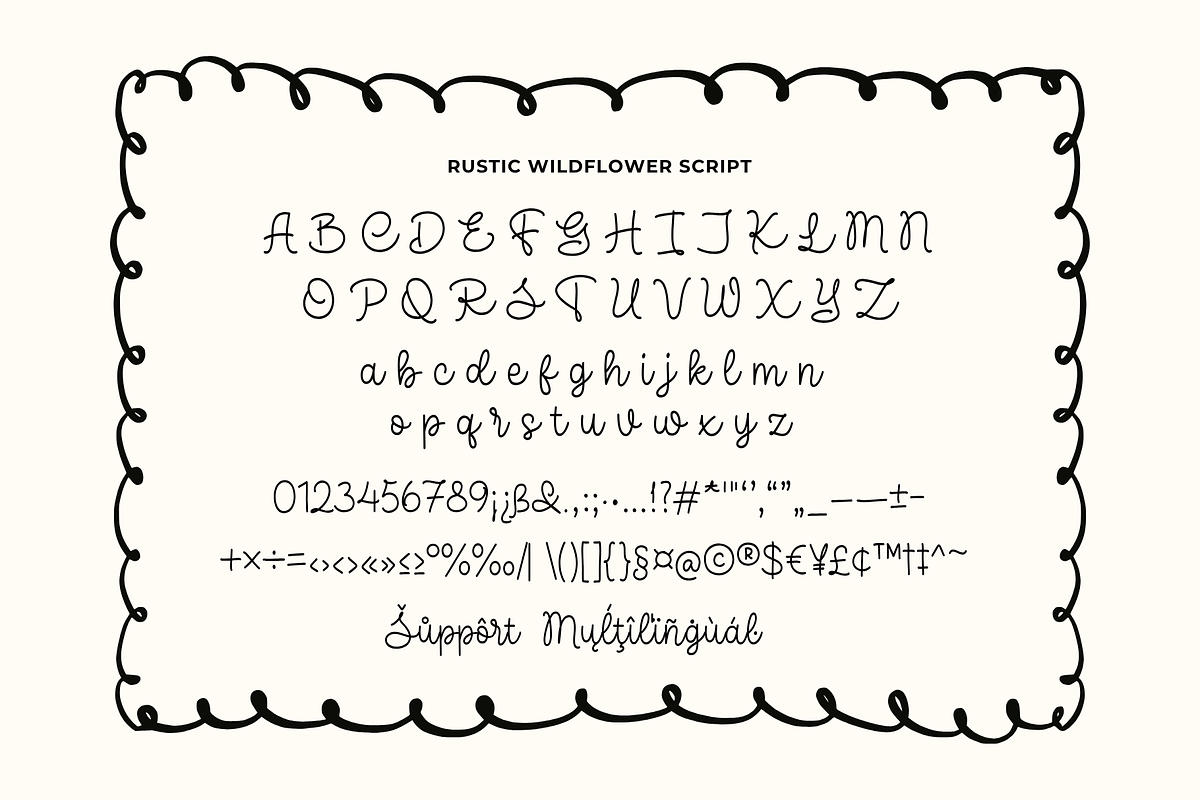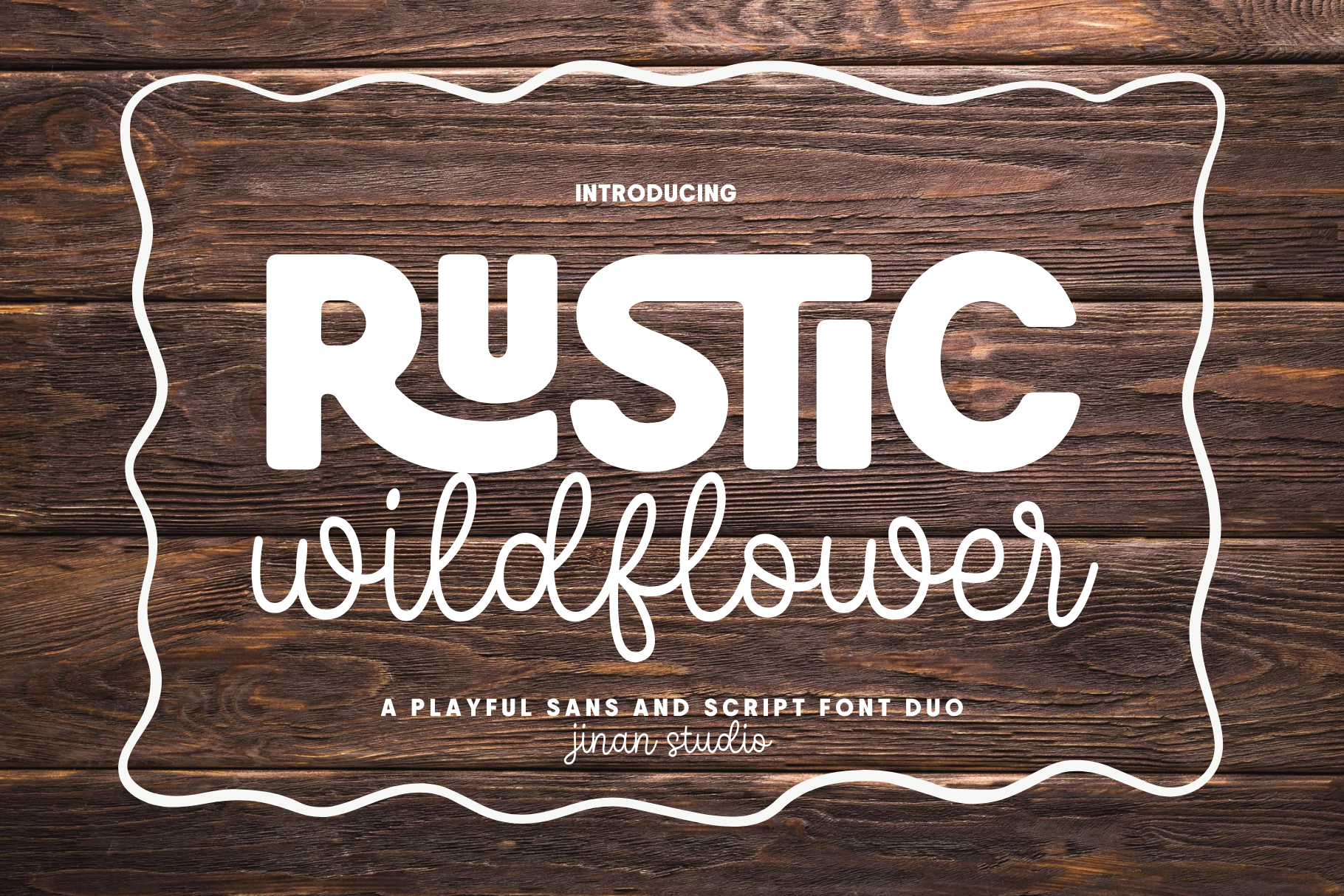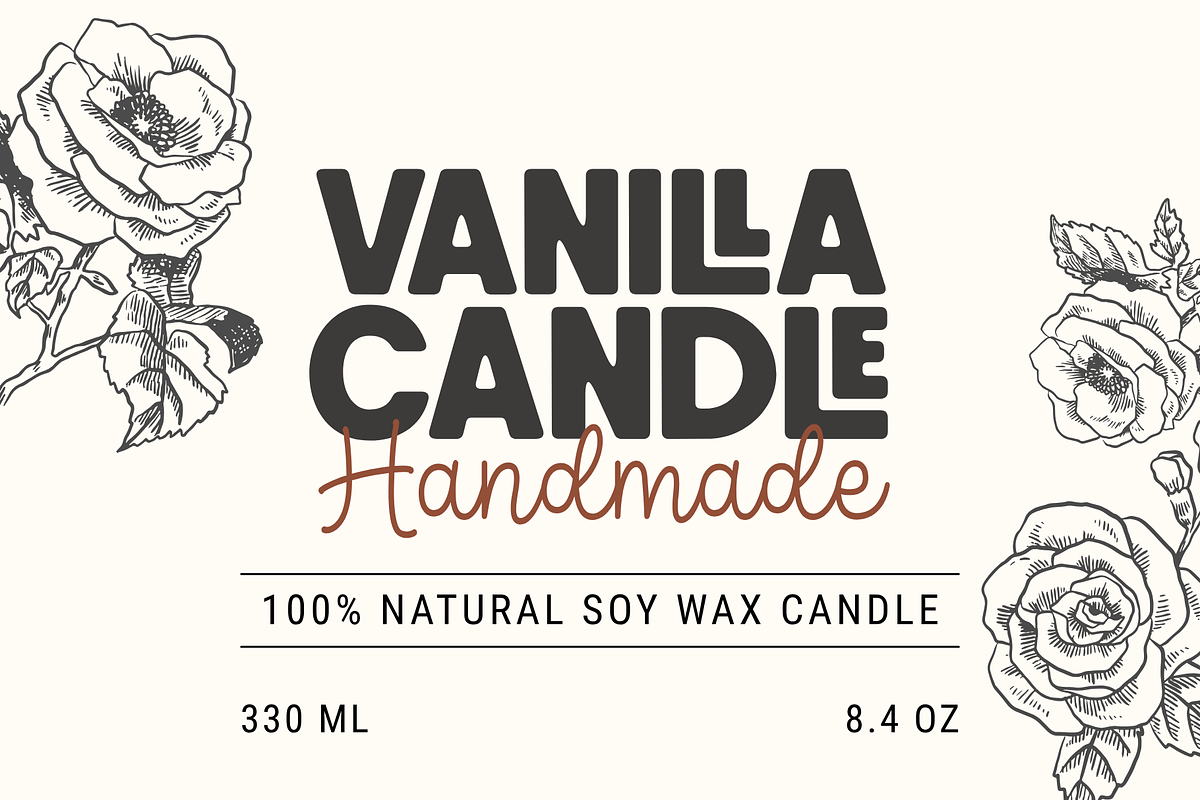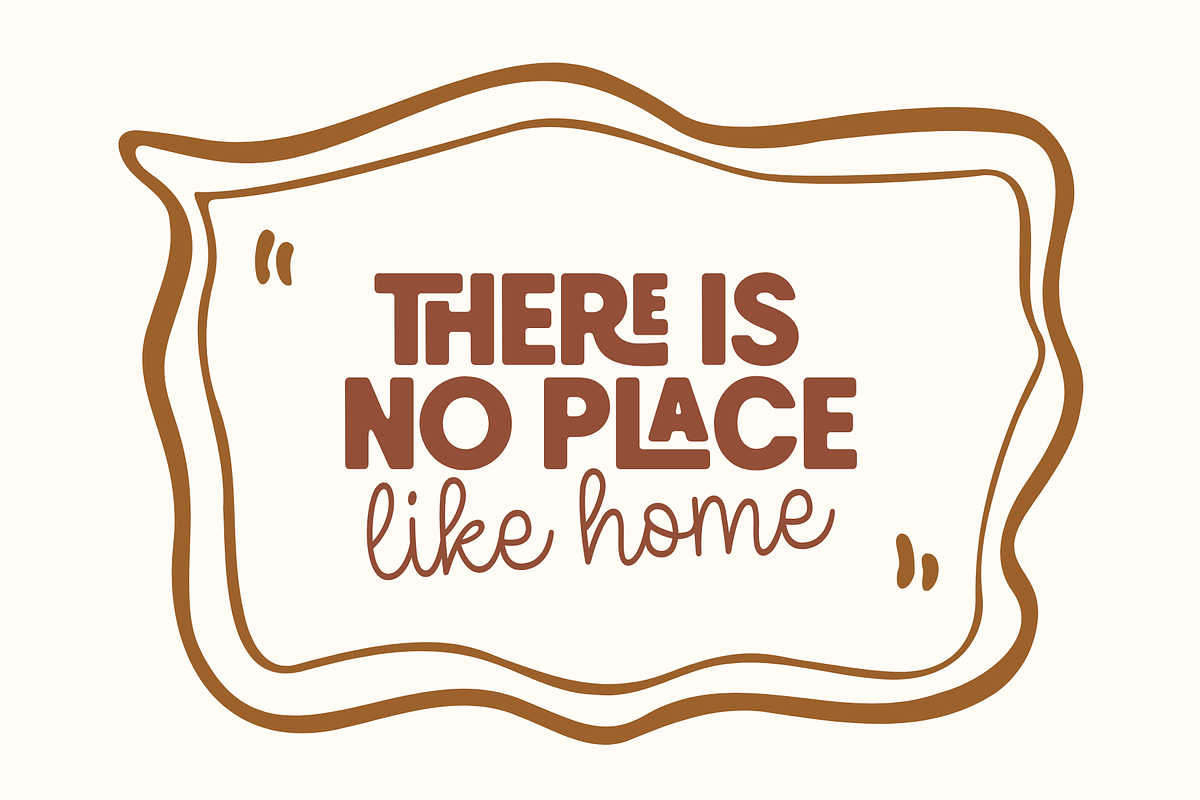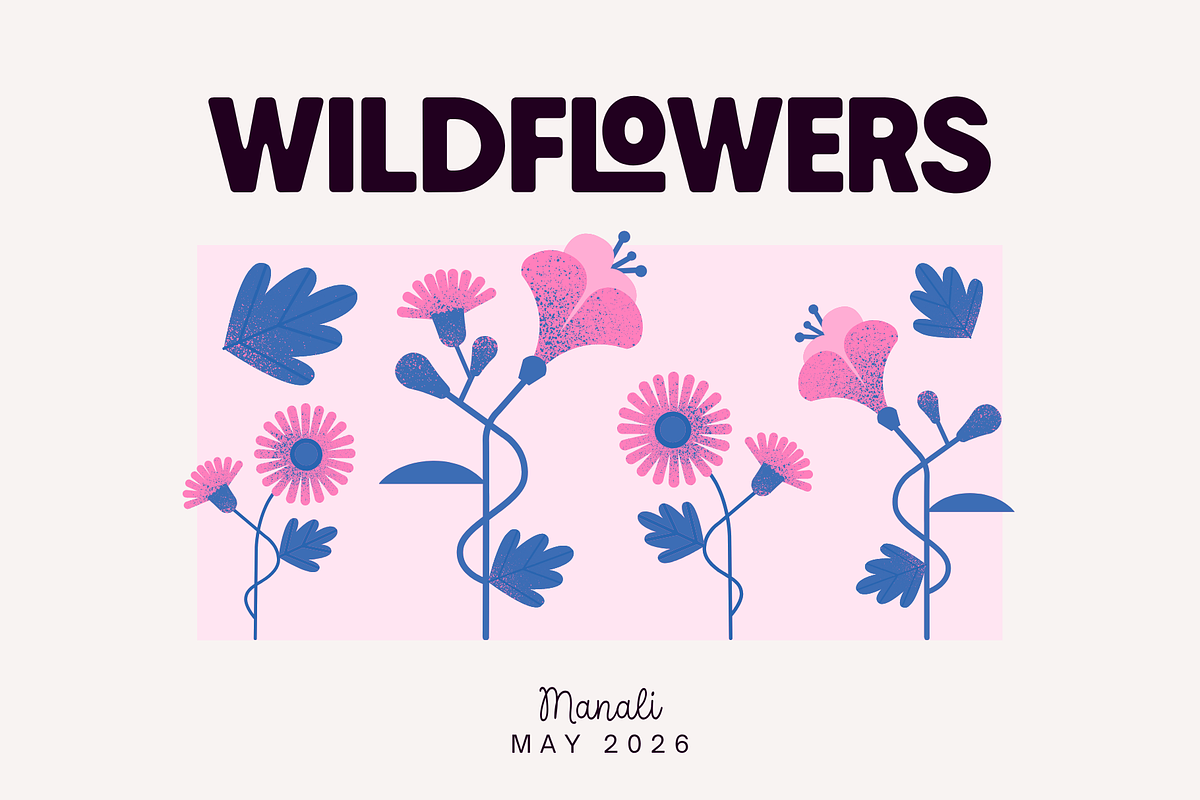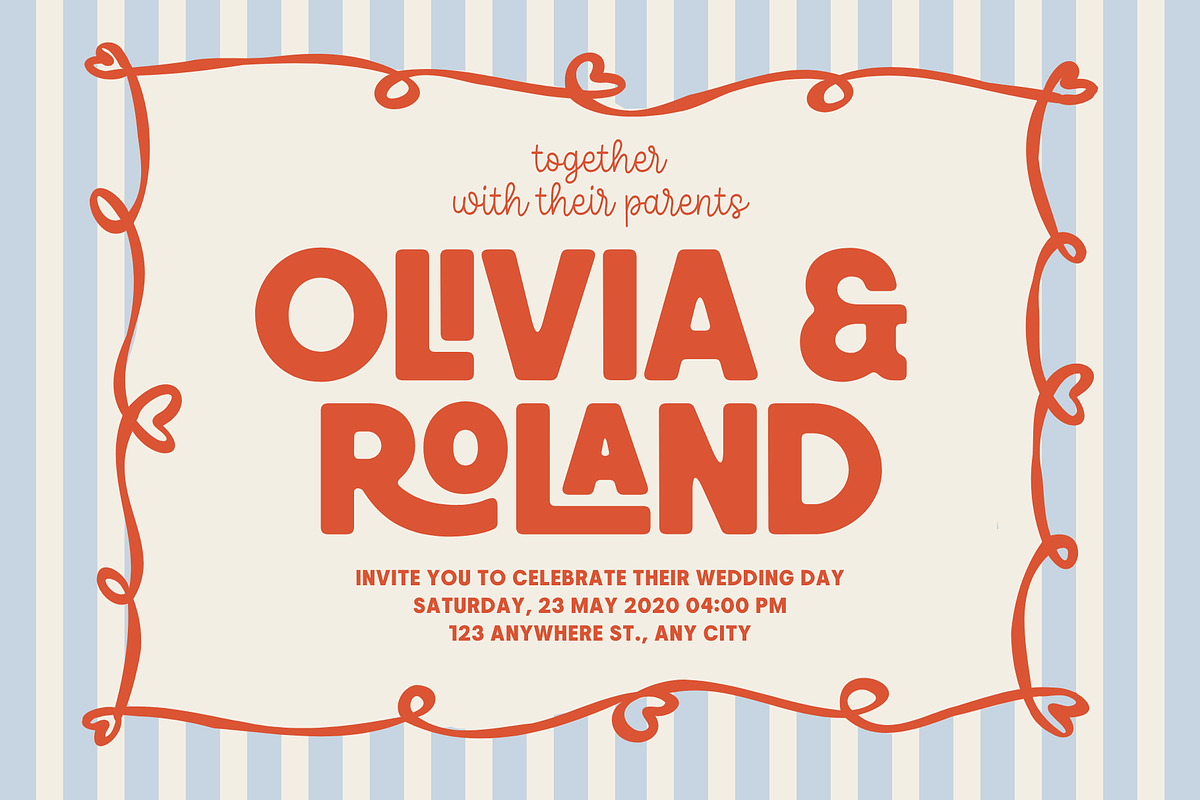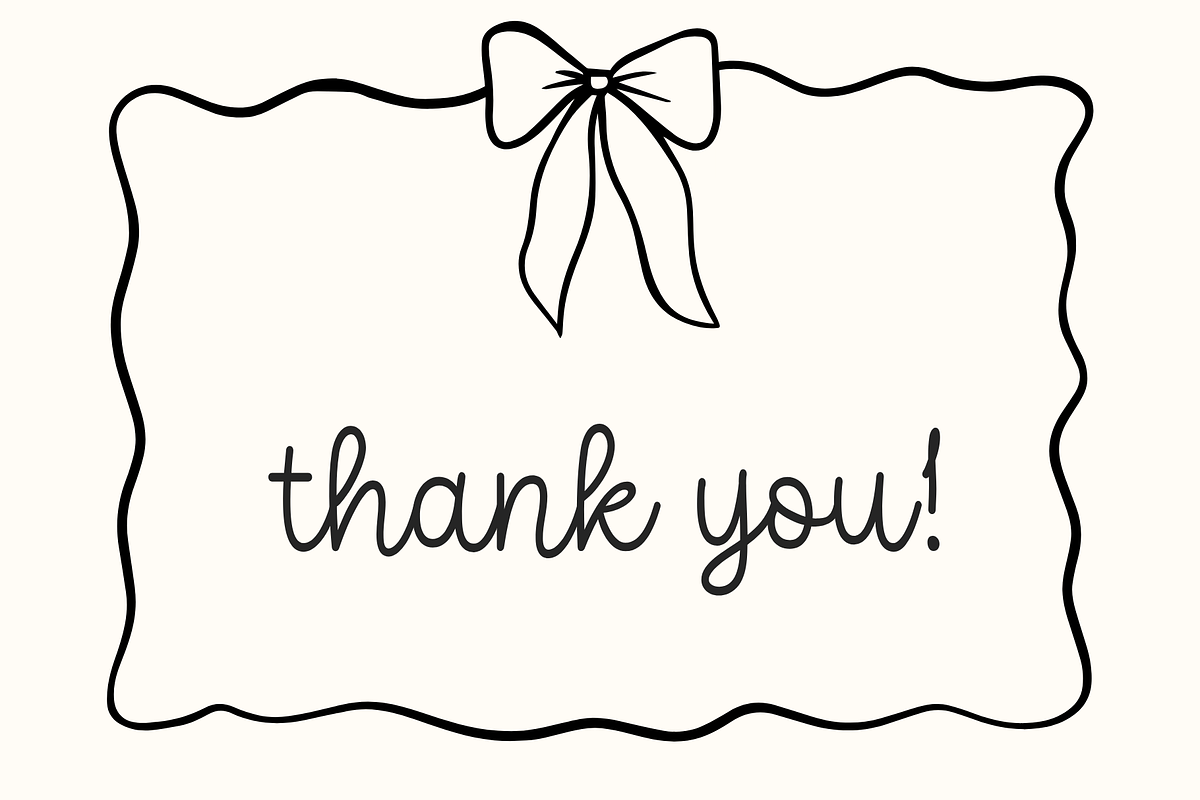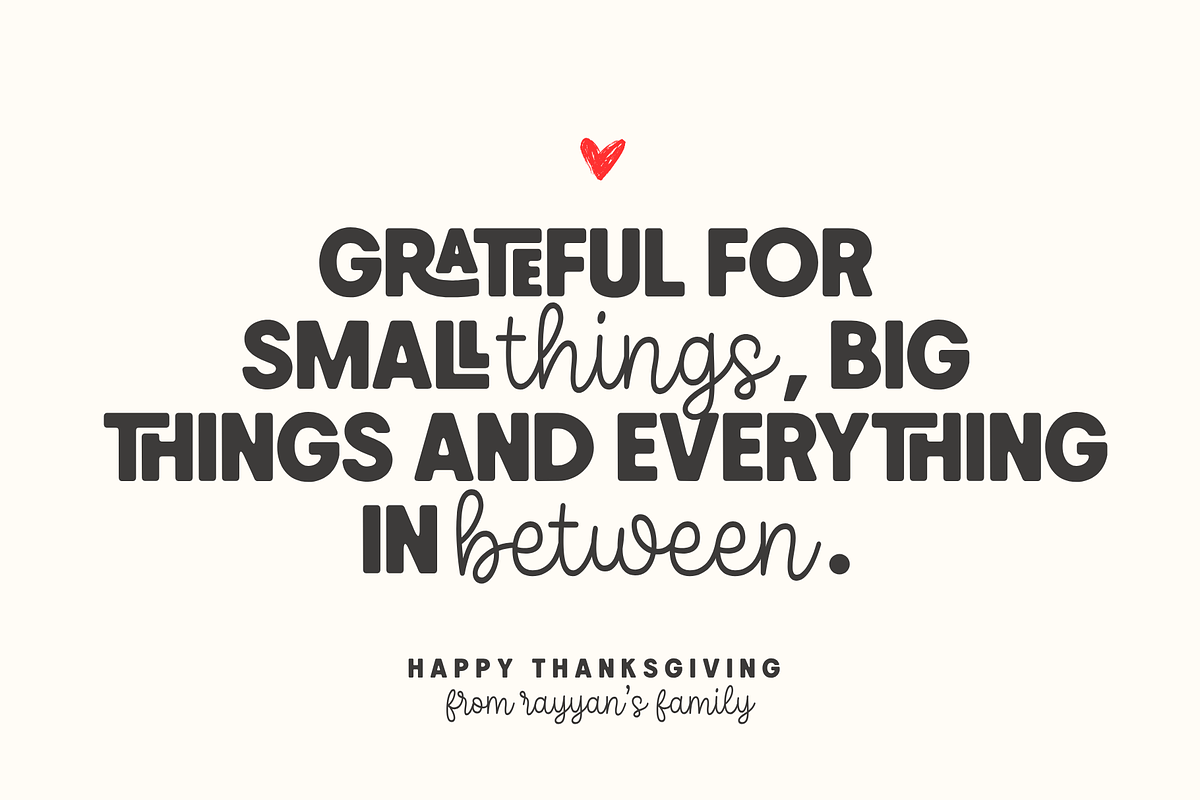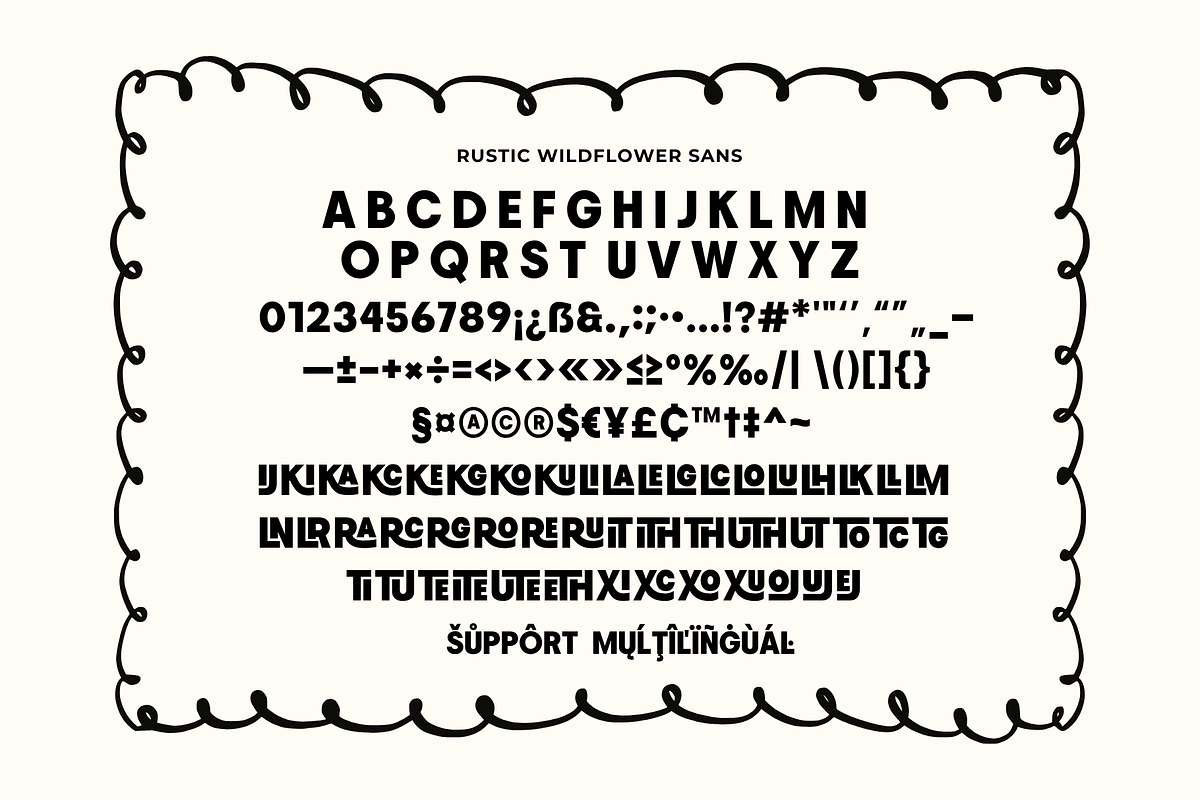
Rustic Wildflower - Playful Font Duo
Rustic Wildflower is a playful font duo featuring a modern sans serif and a natural handwritten script. The sans serif comes in Regular and Rounded styles, giving you the flexibility to create both clean and friendly designs.
Perfect for logos, branding, packaging, social media, invitations, greeting cards, t-shirts, stickers, Cricut & Silhouette projects, and more. Create eye-catching designs with the perfect blend of modern simplicity and handwritten charm using Rustic Wildflower.
A set of uppercase and lowercase glyphs (allcaps sans version)
Number, symbol, and punctuation
Rounded Version